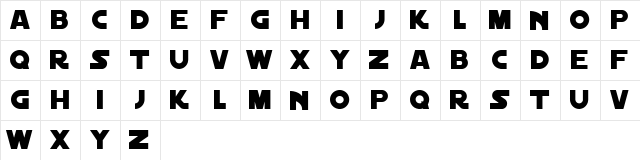
Distant Galaxy Solid Regular
Design Context for Distant Galaxy Solid Typeface
Distant Galaxy Solid is a composed and adaptable typeface that performs quietly and consistently across a wide range of design contexts.